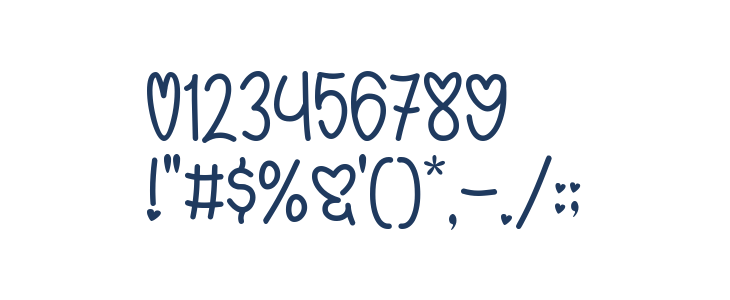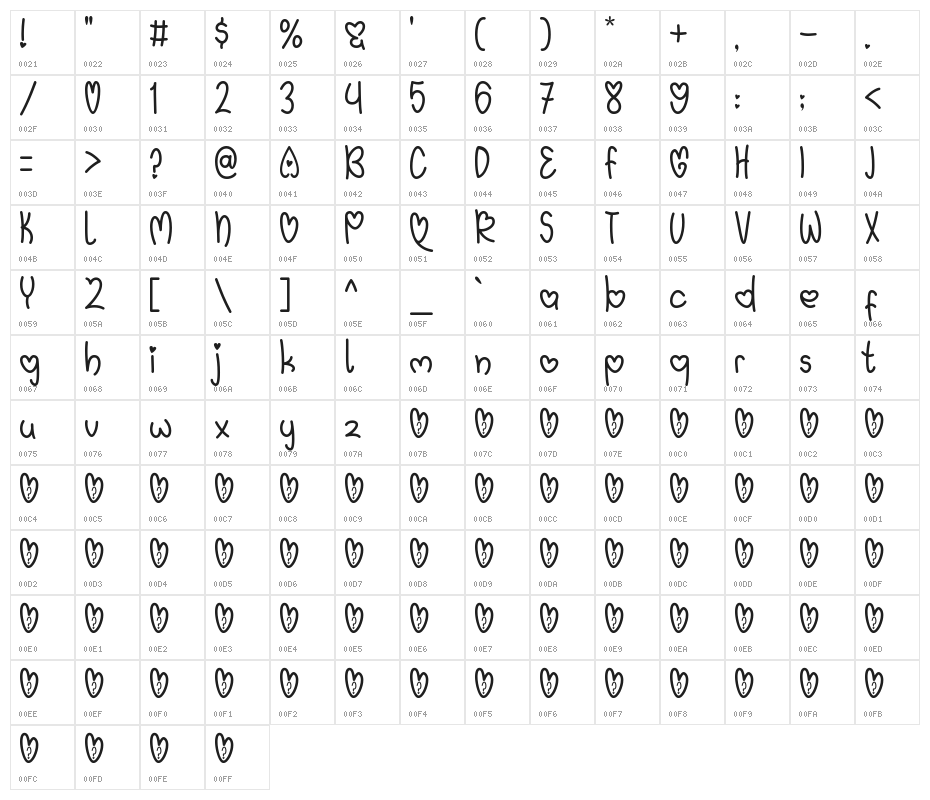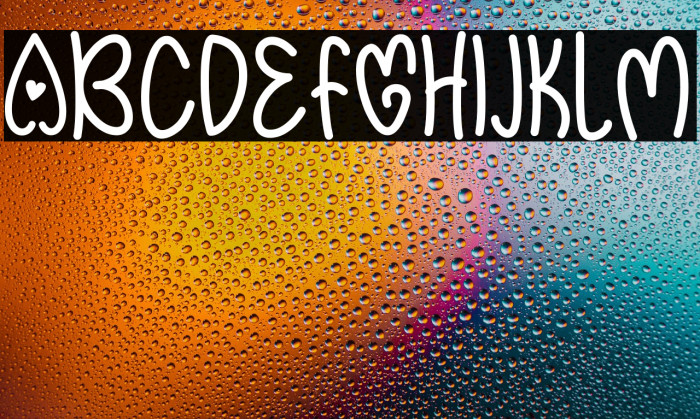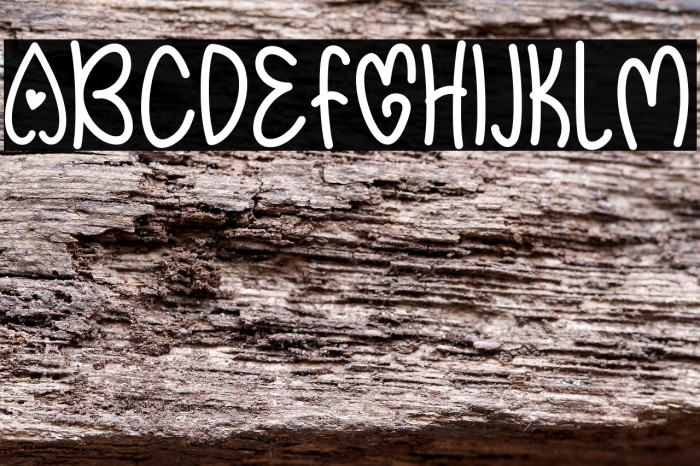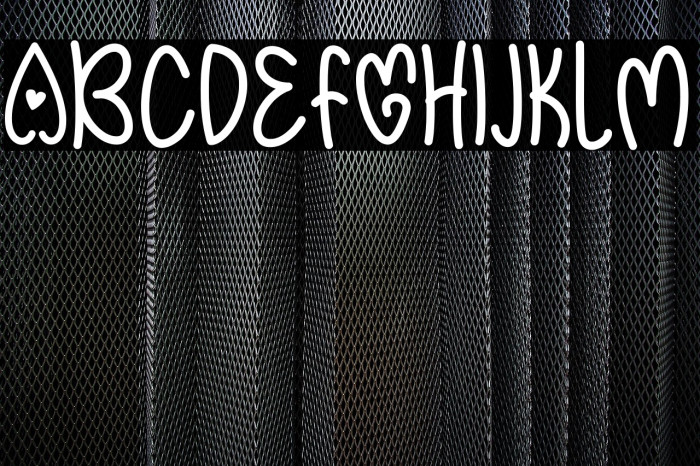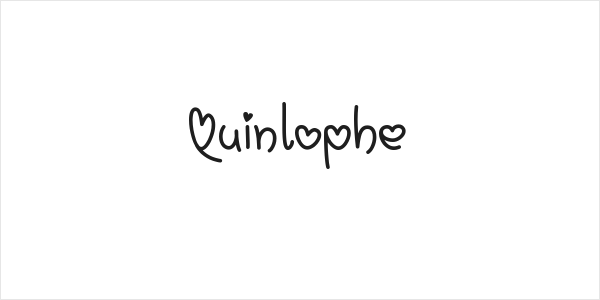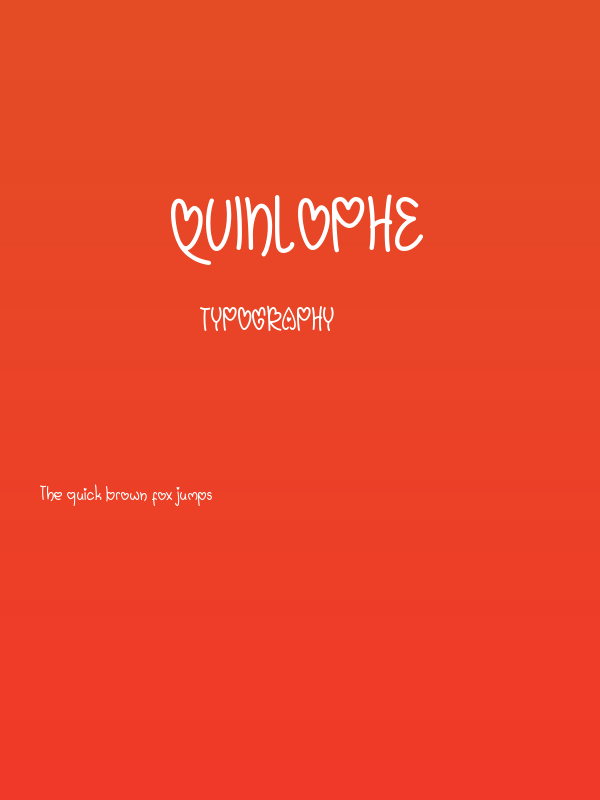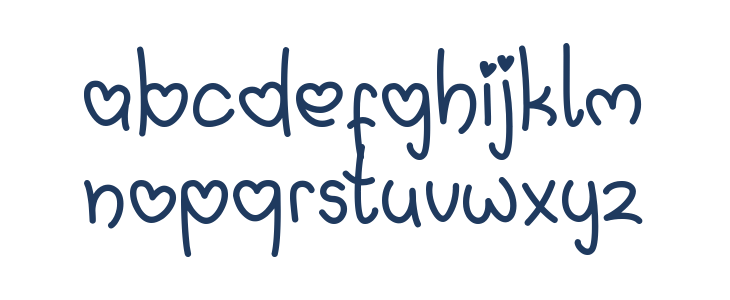
Quinlophe Font
Quinlophe Description
This playful and whimsical font features a unique heart motif integrated into several characters, adding a touch of charm and creativity. The letters are rounded and have a hand-drawn appearance, giving them a casual and friendly vibe. The uppercase and lowercase letters maintain a consistent style, with the heart shape cleverly incorporated into letters like 'B', 'D', 'G', 'O', and 'Q'. The numerals and special characters also follow this playful theme, making the font ideal for projects that require a fun and lighthearted touch. The overall design is cohesive, with smooth curves and a consistent stroke width that enhances readability while maintaining its decorative appeal.
| Proposed Projects | Ideal for greeting cards, children's books, playful branding, and social media graphics. |